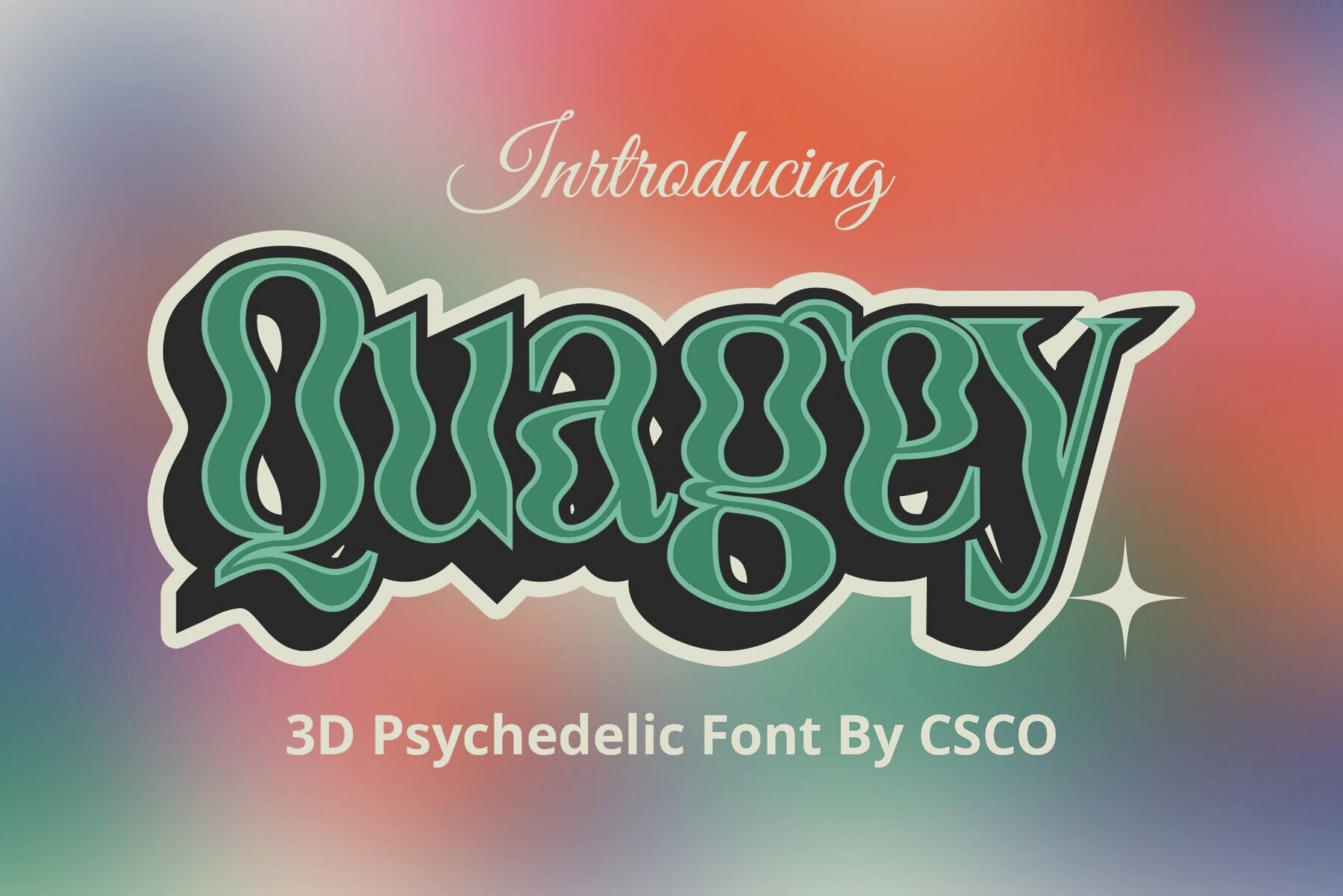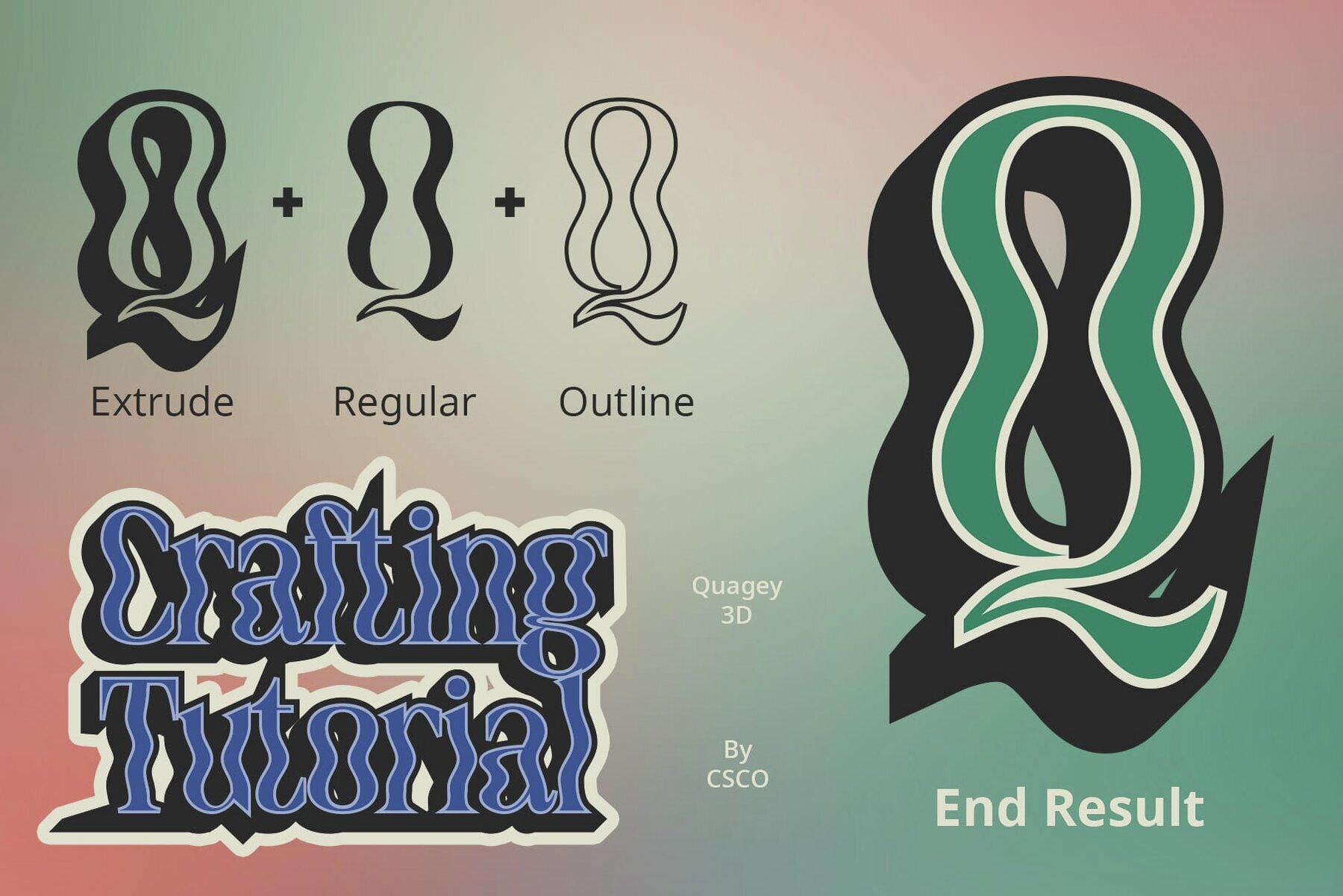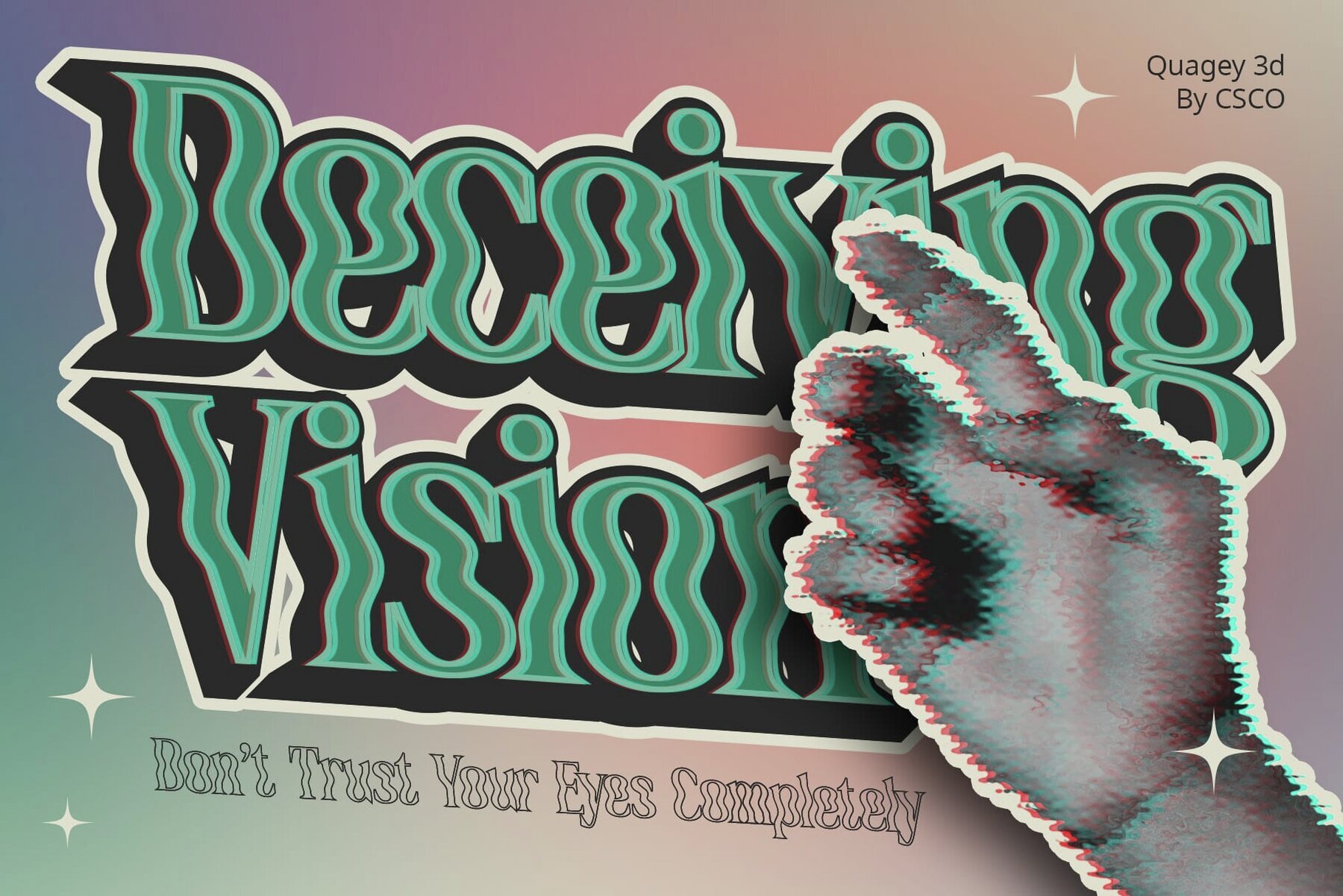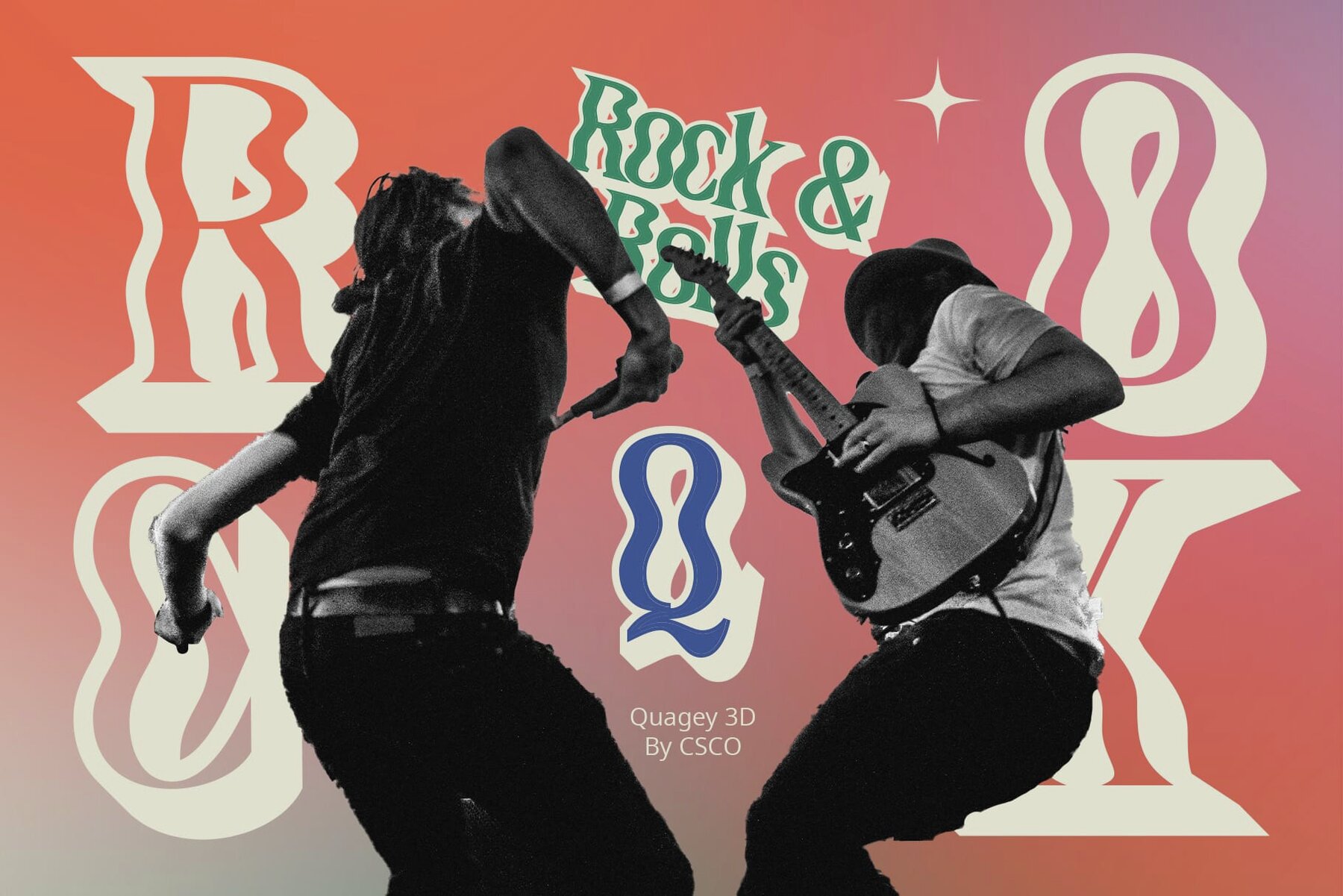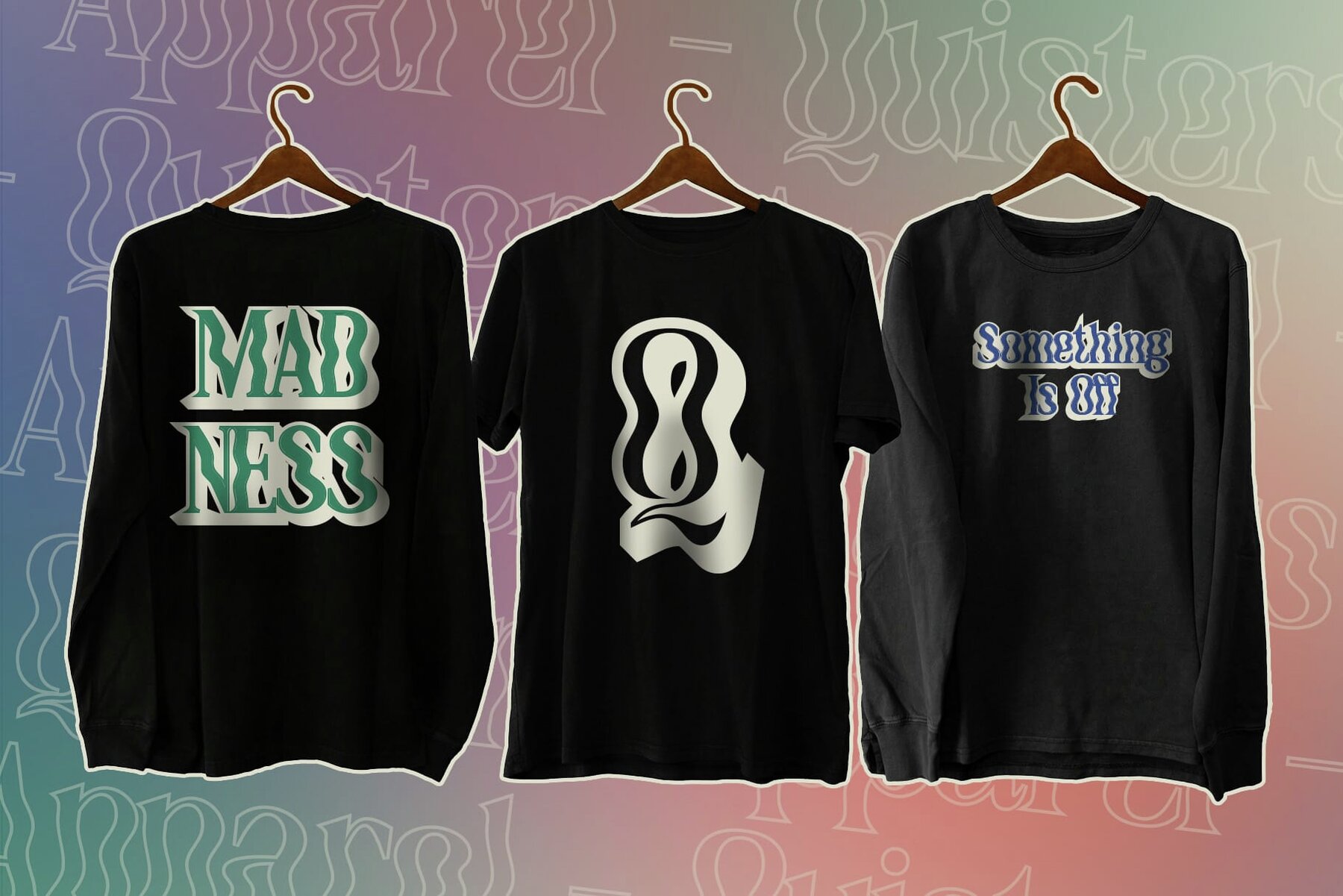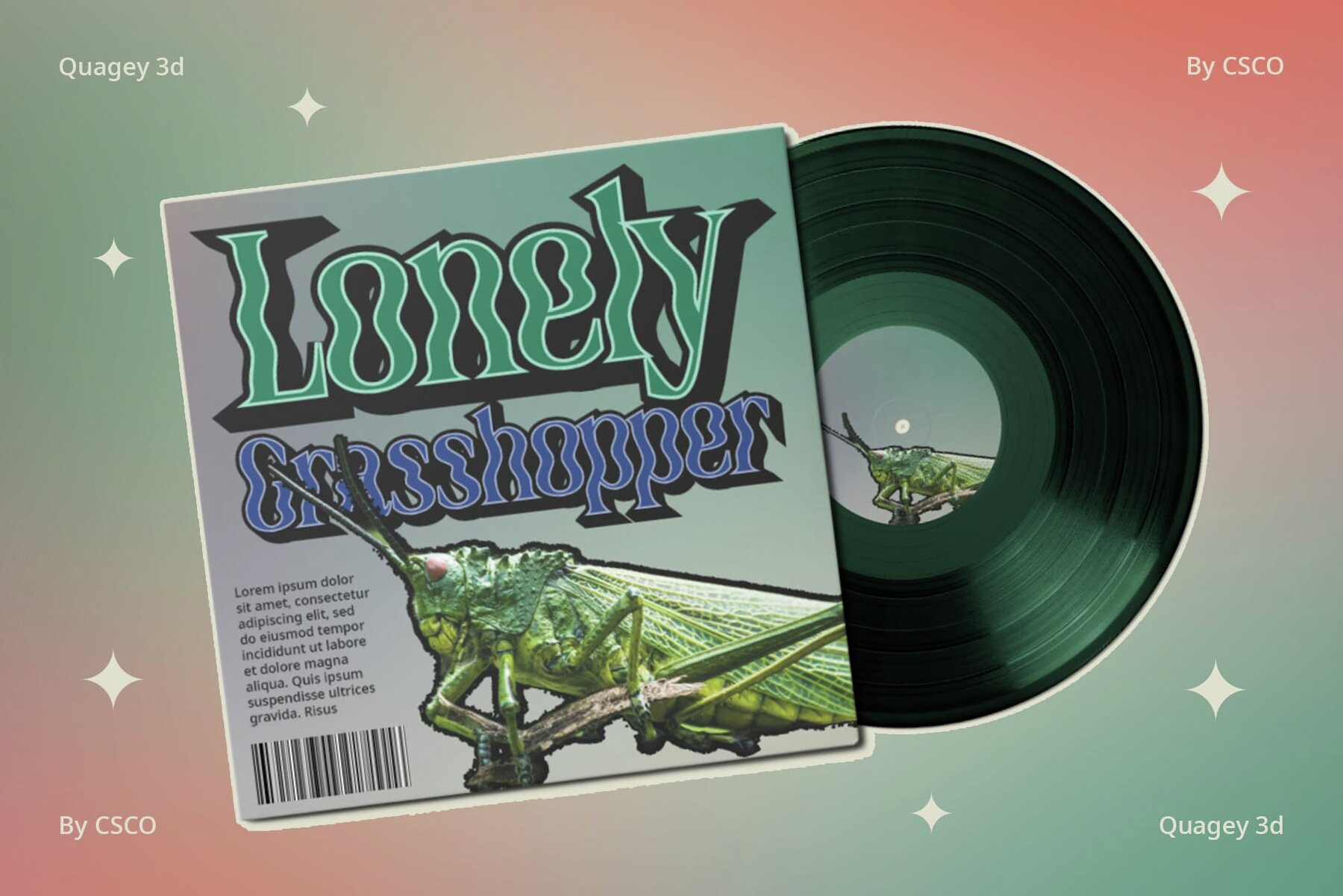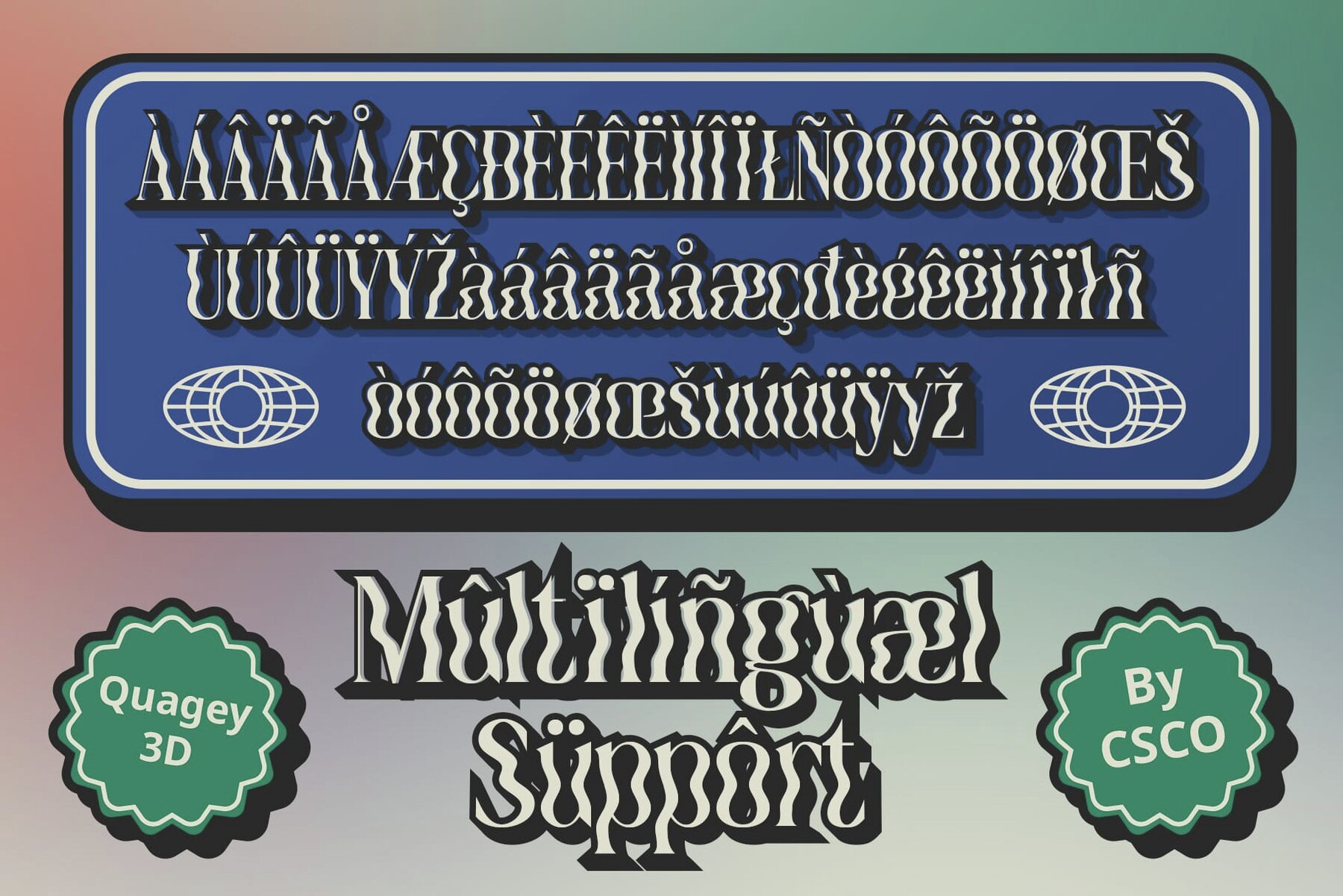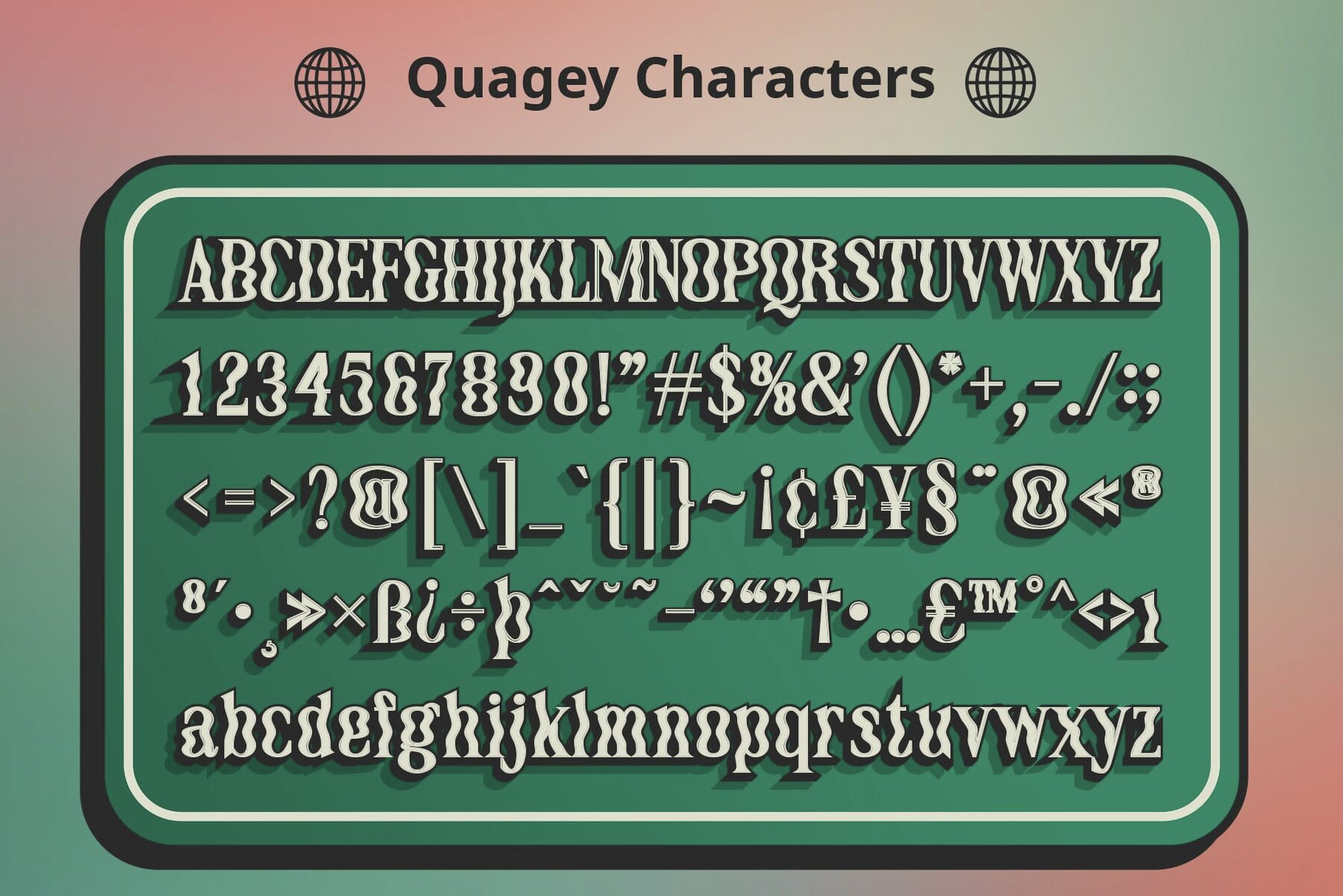
Quagey 3D Font
Quagey 3D captures the essence of psychedelic design, infusing bold and vibrant elements that draw inspiration from trippy visual displays. Its striking presence captures attention, inviting viewers into a mesmerizing journey. With a fusion of outline and extrude effects, Quagey 3D pushes the boundaries of display typography. Each character pulsates with energy, creating an immersive experience that challenges traditional design norms. Designed for bold and captivating displays, this font excels across various mediums, from event posters to digital artwork. Its psychedelic allure ensures maximum impact and engagement in any project. Beyond its trippy aesthetic, Quagey 3D offers versatile application options. Whether featured in music festivals, album covers, or promotional materials, its dynamic design effortlessly adapts to diverse creative needs. Quagey 3D takes users on a psychedelic journey with its innovative display typography. Its trippy inspiration and dynamic effects captivate audiences, infusing a dose of visual excitement into any project. Explore the world of Quagey 3D to unleash your creativity with its mesmerizing design possibilities. This typeface can be used without any specialized software. If you have any inquiries or require assistance, please feel free to contact us. Thank you for supporting your creative projects!Quagey 3D: Embracing Psychedelic Display Typography
Innovative Design Elements
Perfect for Eye-catching Displays
Versatility in Application
Psychedelic Journey